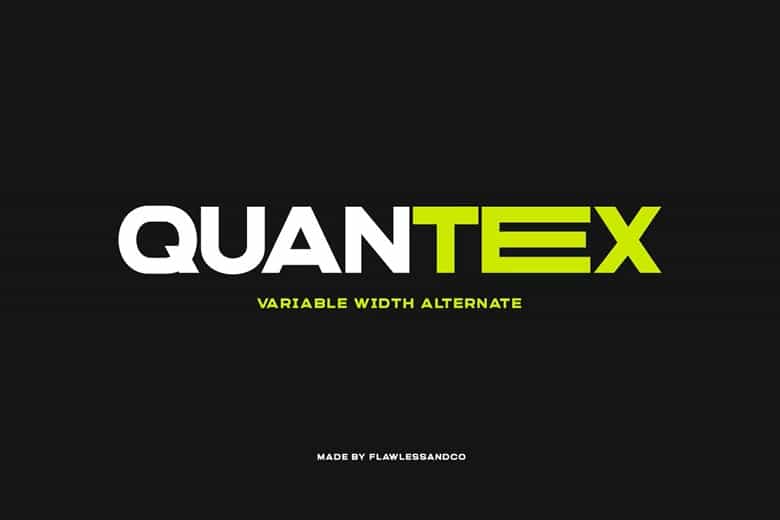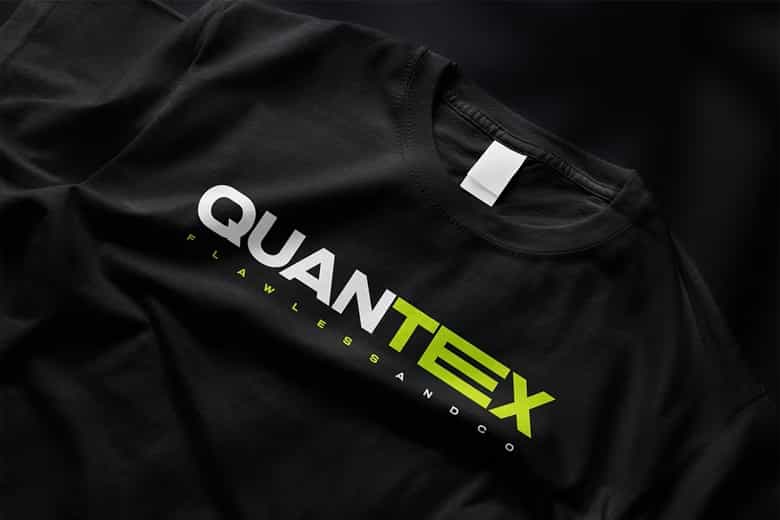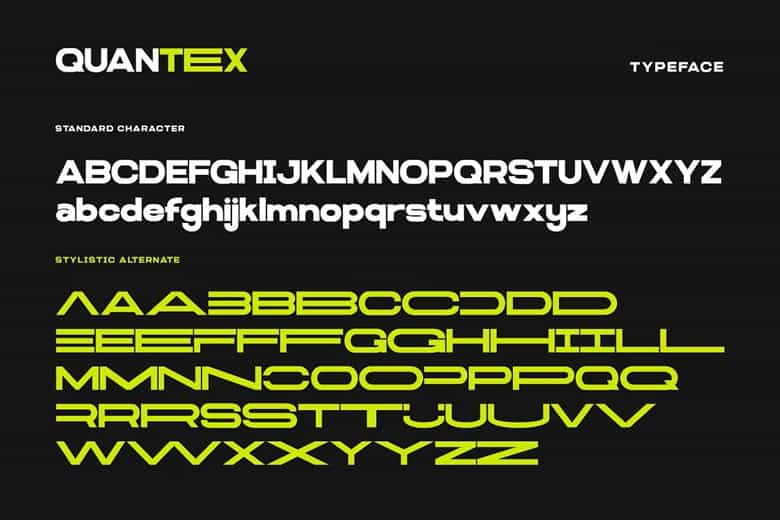
Quantex is an ultra-modern sans-serif futuristic font suitable for the avant-garde designs. This specific typeface has straight defined edges and corners and therefore gives an impression of a high tech and futuristic design.